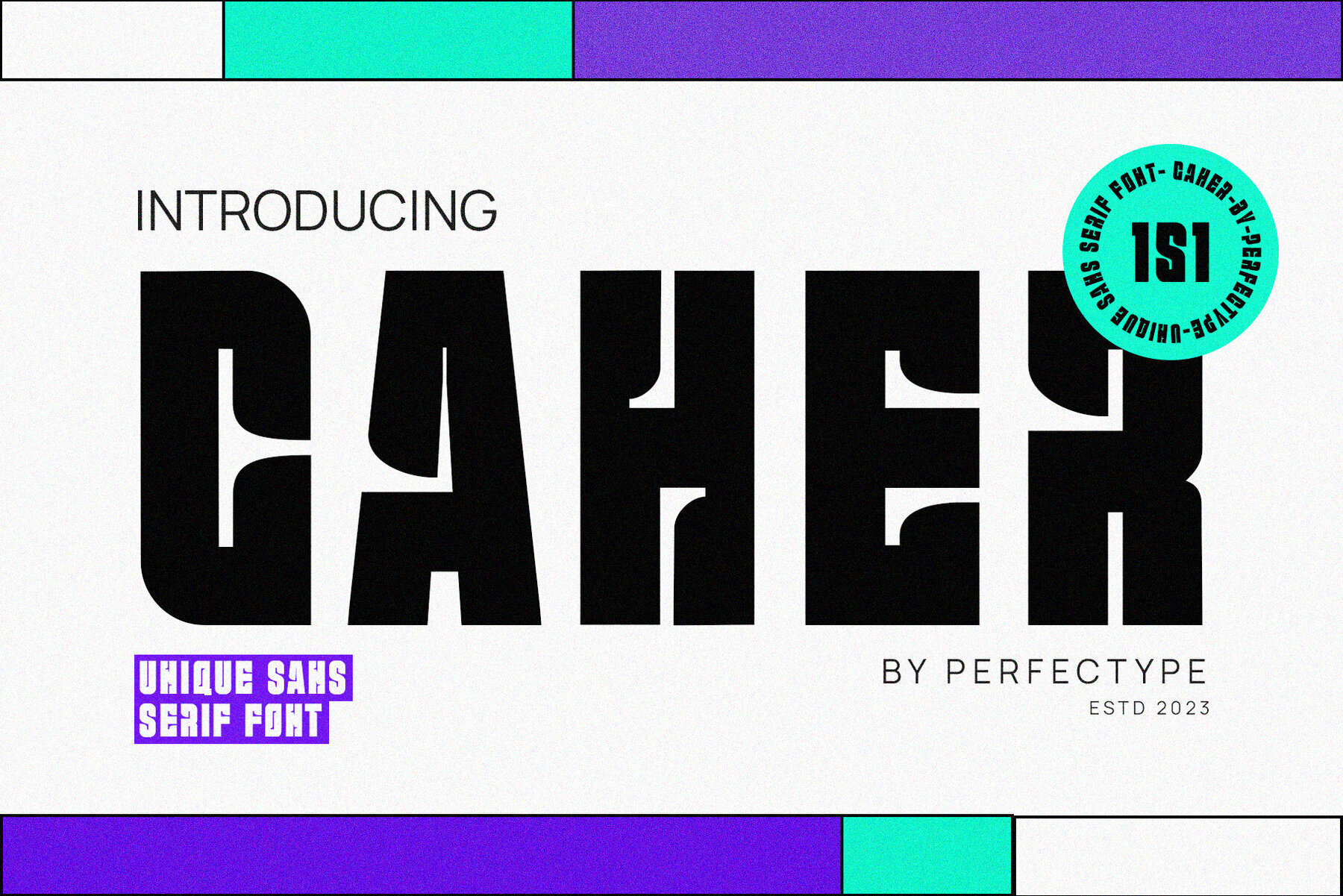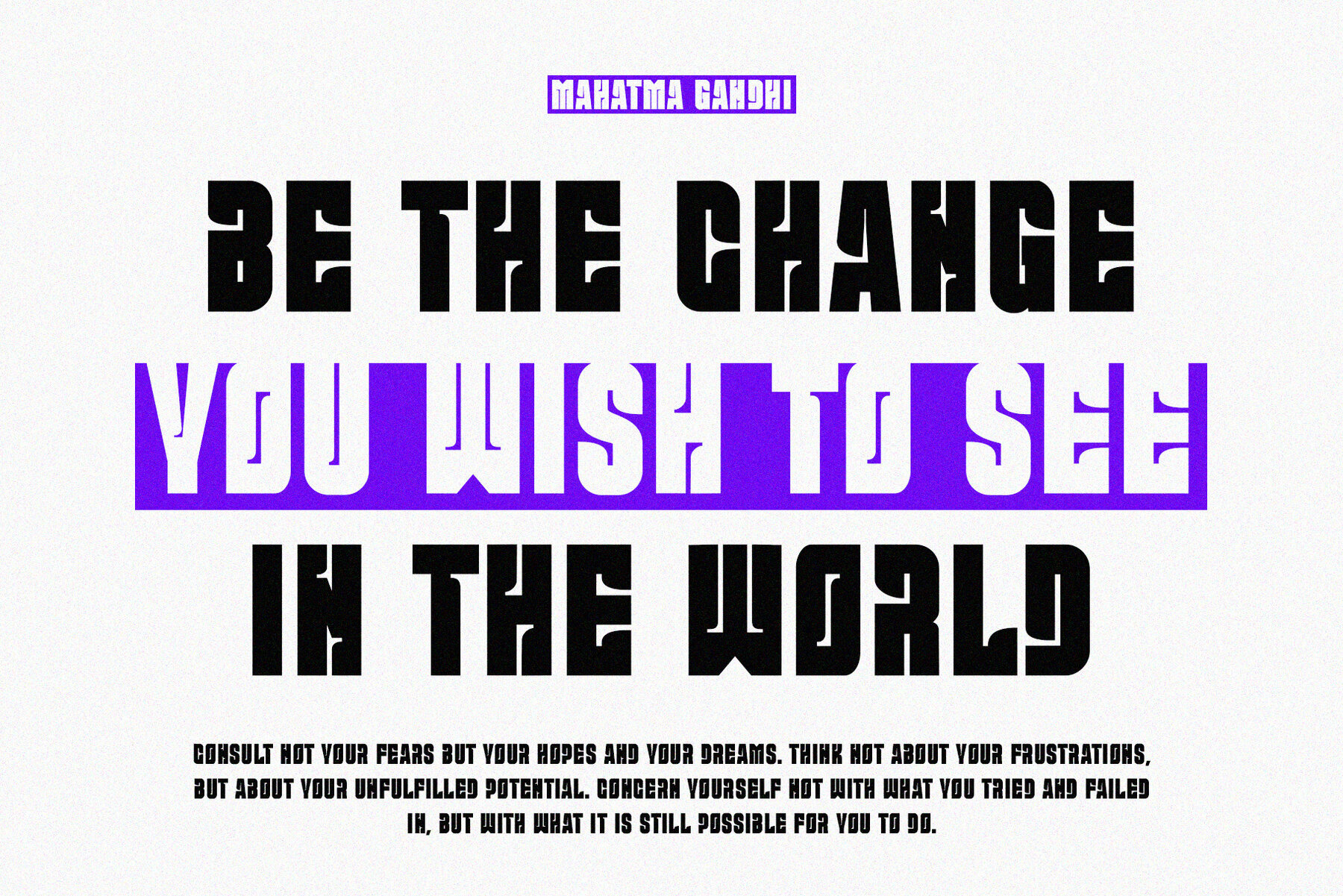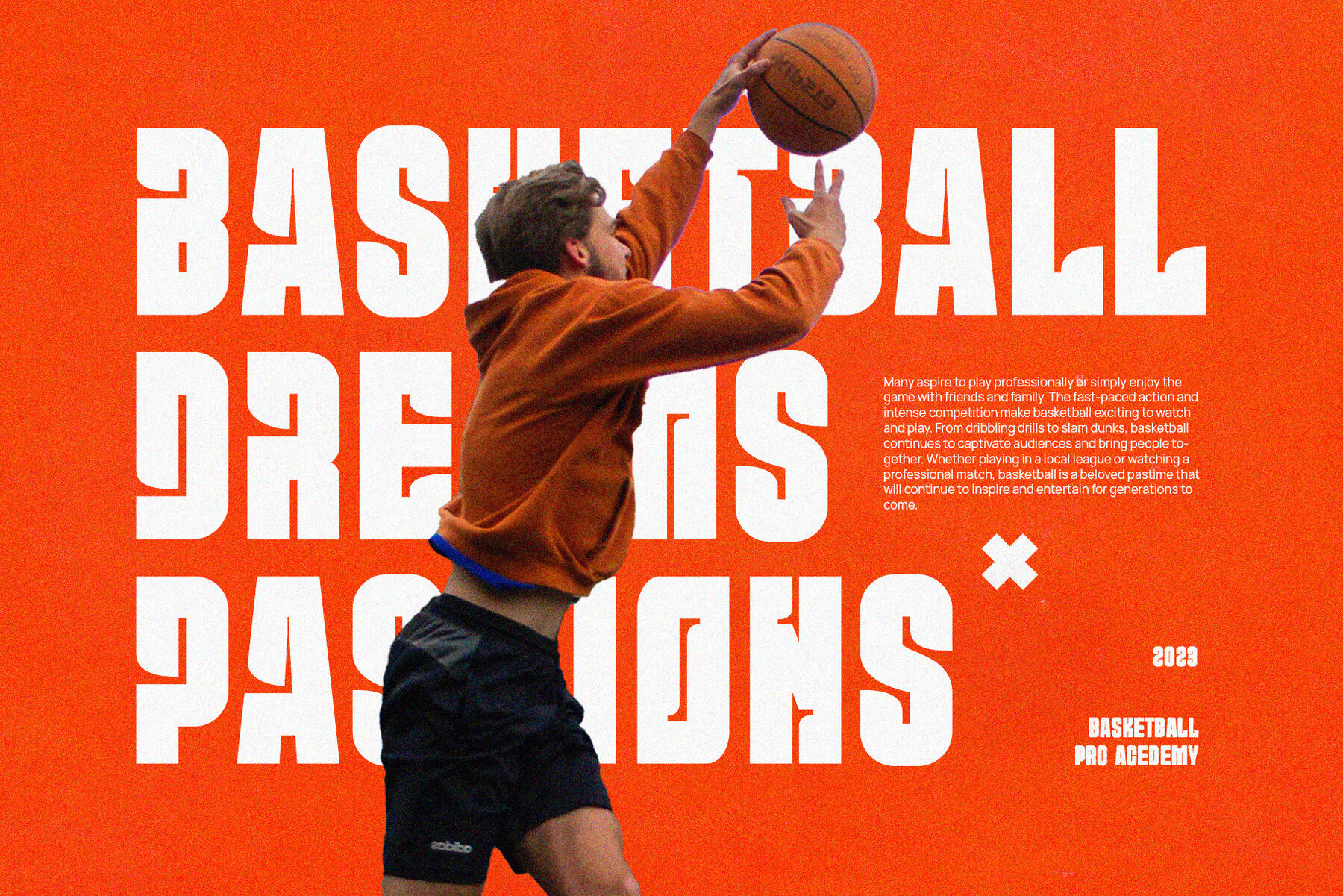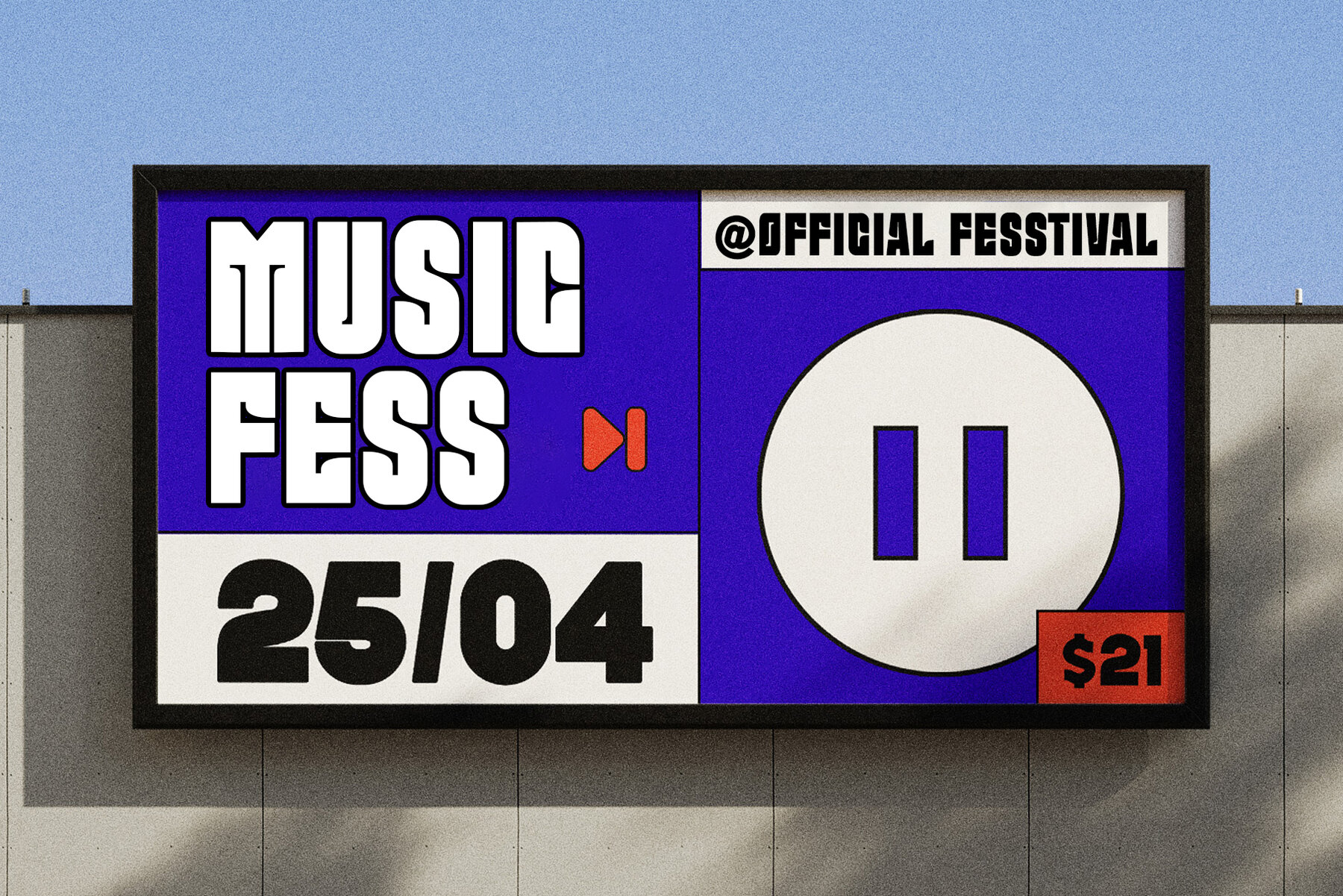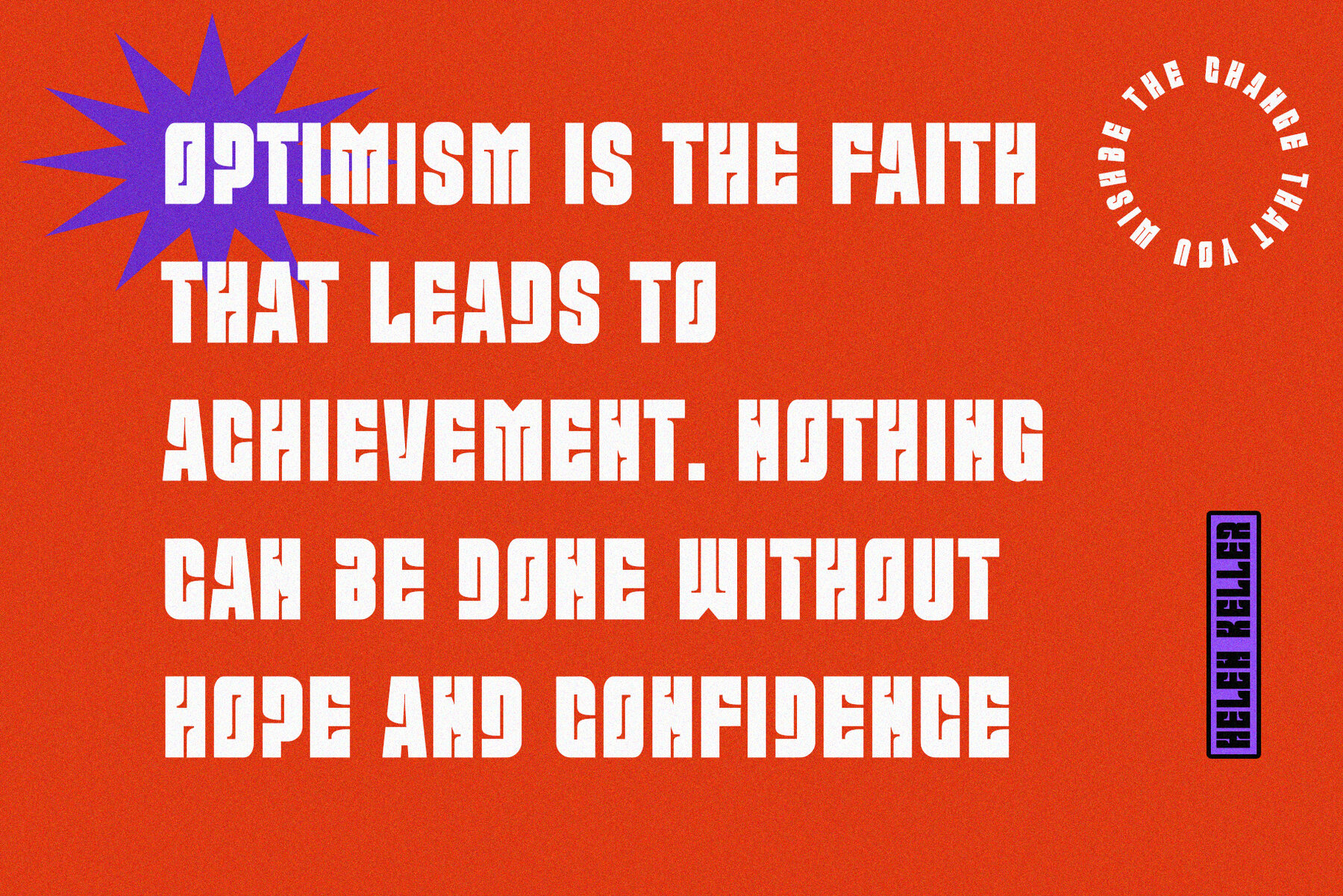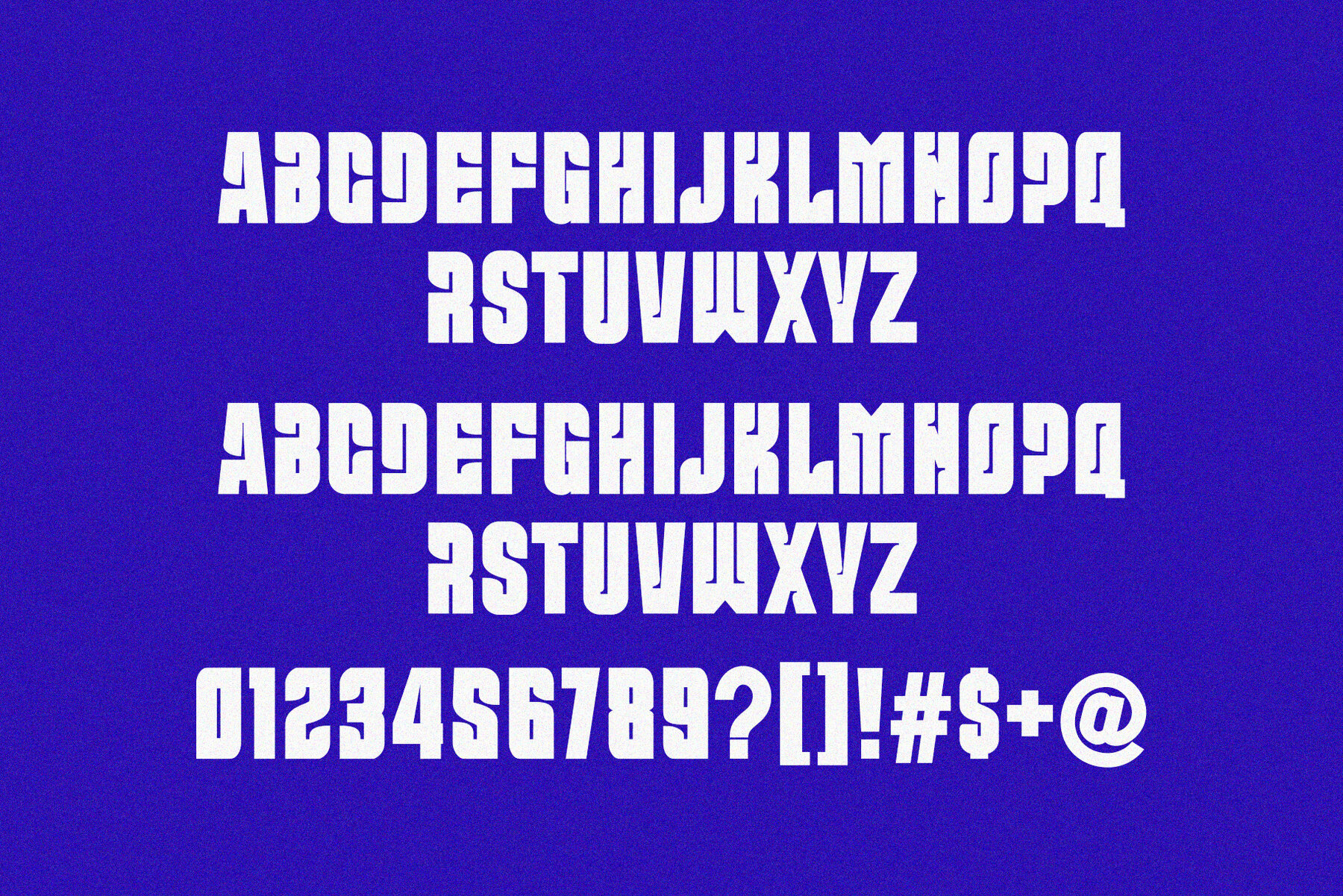
Caher Font
Caher Regular
This carefully crafted sans serif font is designed for balance and high readability. Caher’s meticulous design makes it an excellent choice for various graphic design projects, including brochures, videos, advertising, branding, logos, magazines, layouts, posters, social media templates, and games.
- Standard characters
- Numbers & punctuation
- Accented characters (Western Europe)